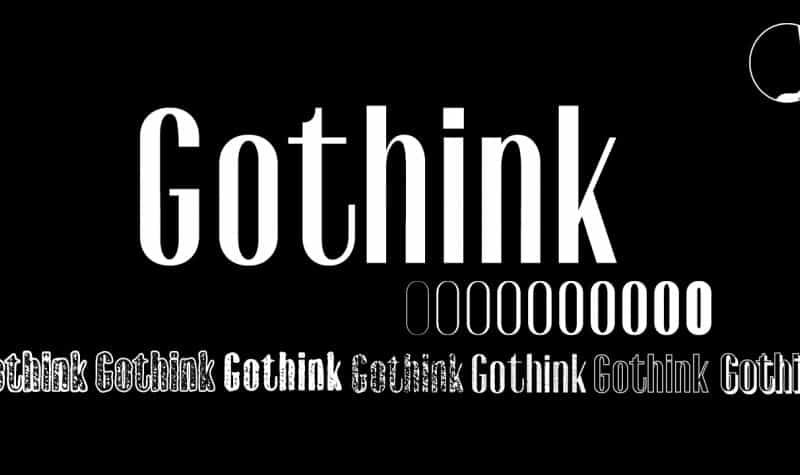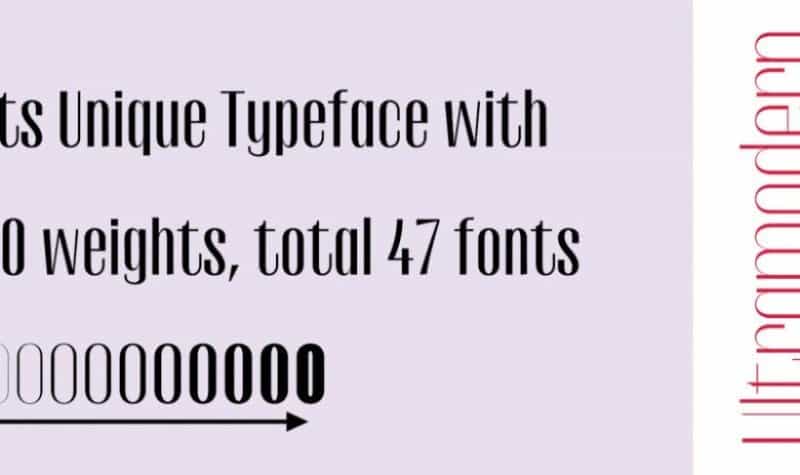
Introducing Gothink Sans Font Family! It is a product of Jadugar Design Studio and it is also available for the public. Gothink is a special collection of fonts that has 10 weight variations and 4 styles. Besides, there are also shadow, outline, aged and rough types in it. This is a luxury font family for some modern look as well as you get the full range of other options with outline and aged series. That is created with such precision that I would be happy to see it on your new projects.